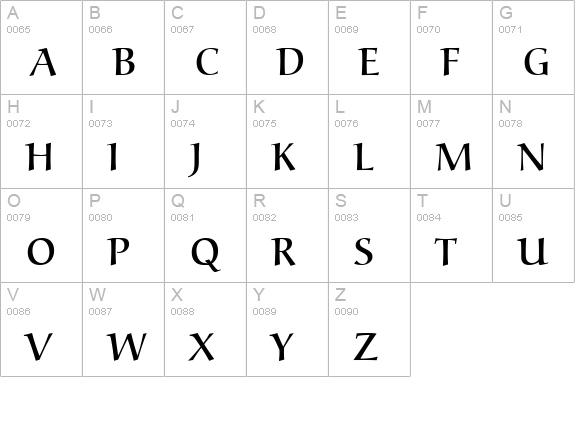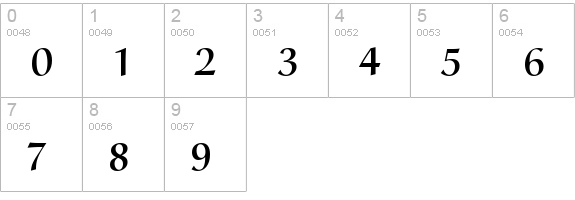
URWAlcuinT Font Details
URWAlcuinT is a modern and stylish font that exudes elegance and sophistication. With its clean lines and graceful curves, this font is perfect for any design project that requires a touch of refinement. One of the best things about URWAlcuinT is that it is free to download. Yes, you read that right - this amazing font is freely available for download at FontsMarket.com. Whether you are a professional designer or a hobbyist, you can now access and use this beautiful font without any cost. URWAlcuinT is not only visually appealing, but it is also highly versatile. Its timeless design makes it suitable for a wide range of applications, from logo design to website content, from print materials to social media graphics. This font will surely elevate the overall look and feel of any project, adding a touch of sophistication and professionalism. With its generous character set, URWAlcuinT offers a variety of options for creating unique and eye-catching designs. It supports multiple languages, making it accessible to a global audience. Additionally, the font comes in various weights and styles, allowing for even more creative possibilities. Downloading URWAlcuinT from FontsMarket.com is a breeze. Simply visit the website, locate the font, and click the download button. Within seconds, you will have this beautiful font at your fingertips, ready to enhance your design projects. So why wait? Take advantage of this incredible opportunity to download URWAlcuinT for free and elevate your designs to new heights. Whether you are working on a personal project or a professional assignment, this font will surely make a lasting impression. Get it now and let your creativity soar.